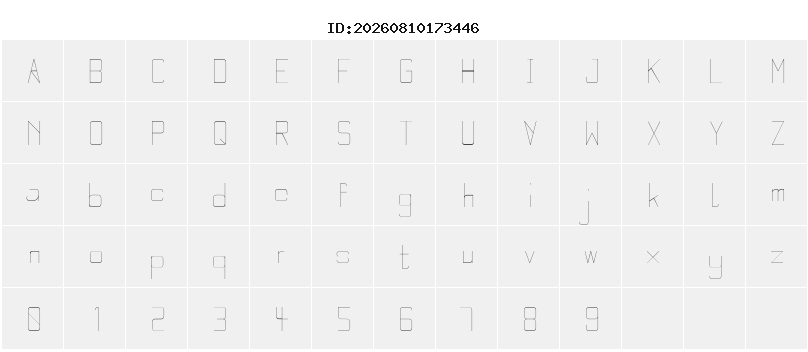
• Font Name: Quarter Sans
• Font Style: Light
• Full Font Name: Quarter Sans Light
• Designer: Michael McMahon
• Manufacturer: Michael McMahon
About Quarter Sans.ttf
Quarter Sans.ttf is a modern, elegant sans-serif font designed for ultimate readability and visual harmony. Perfect for branding, headlines, web design, and print materials.